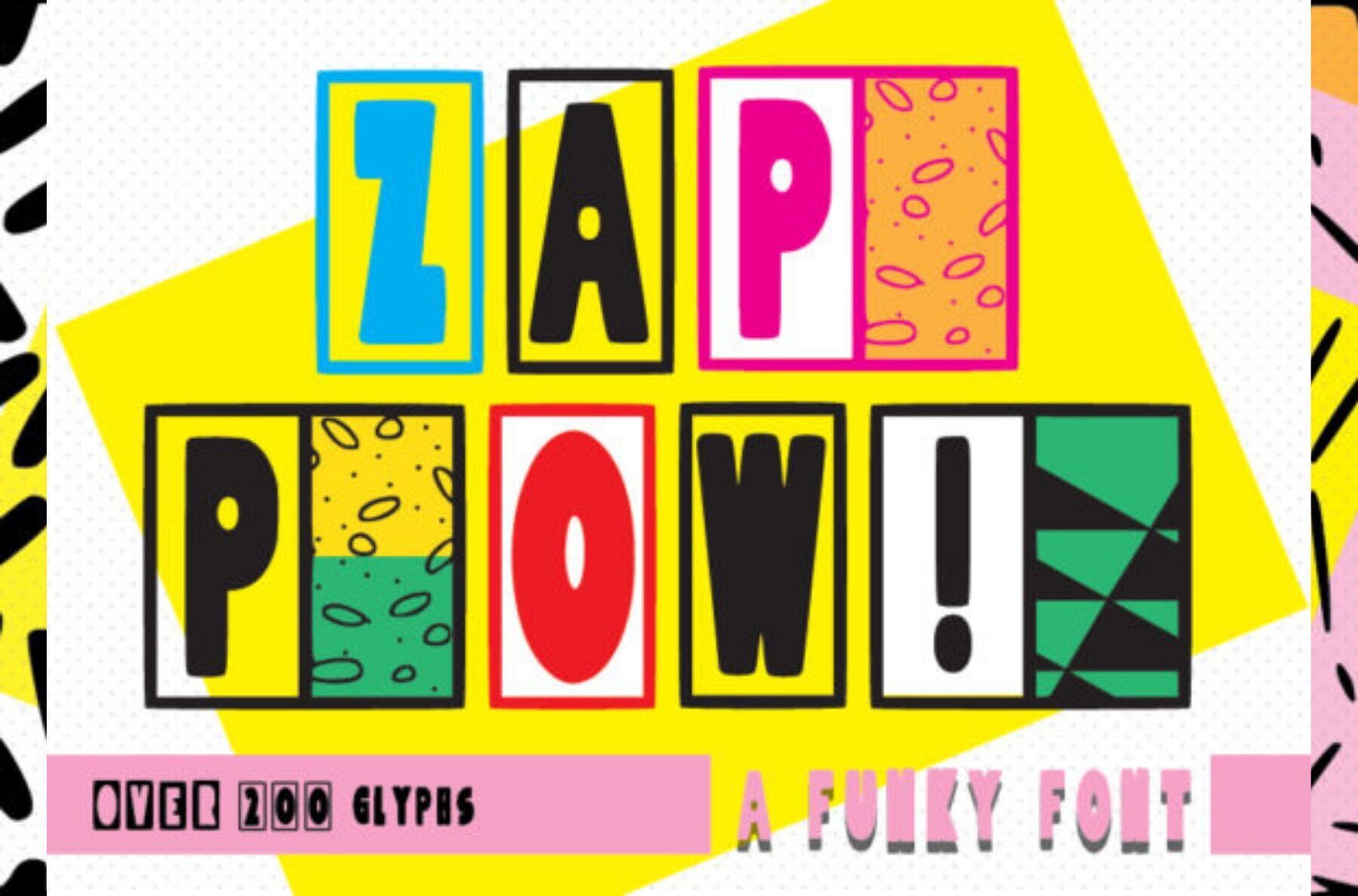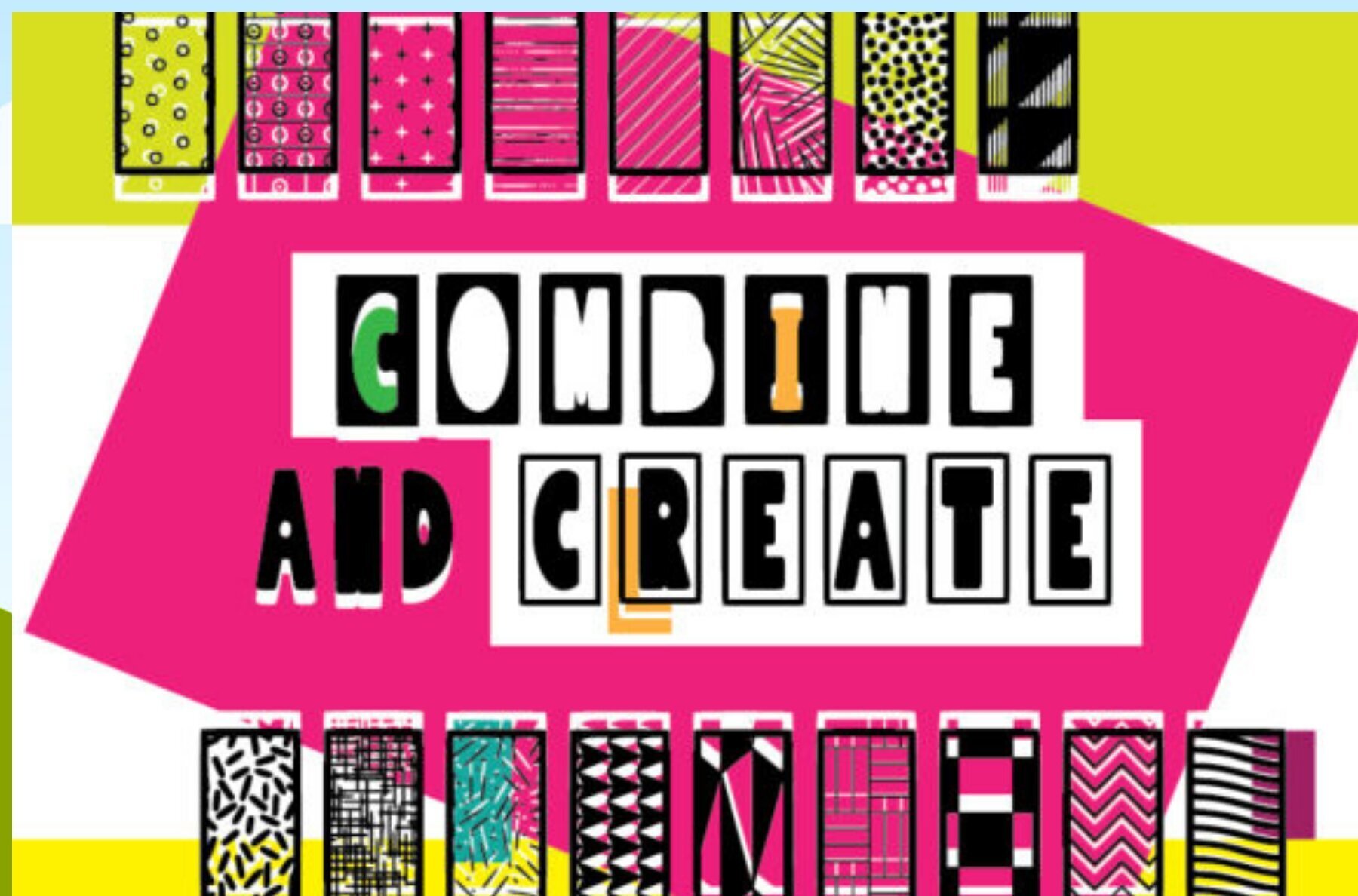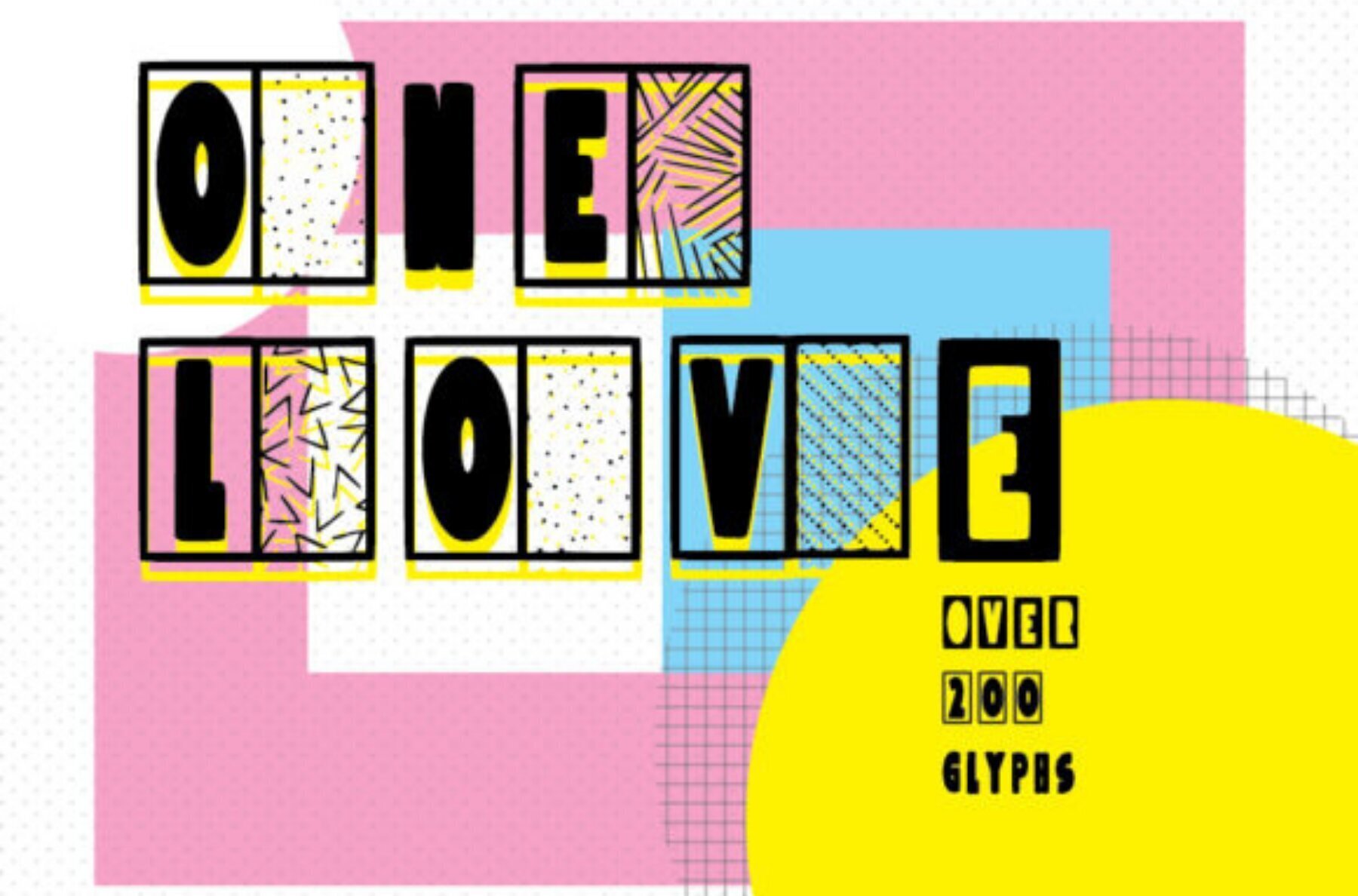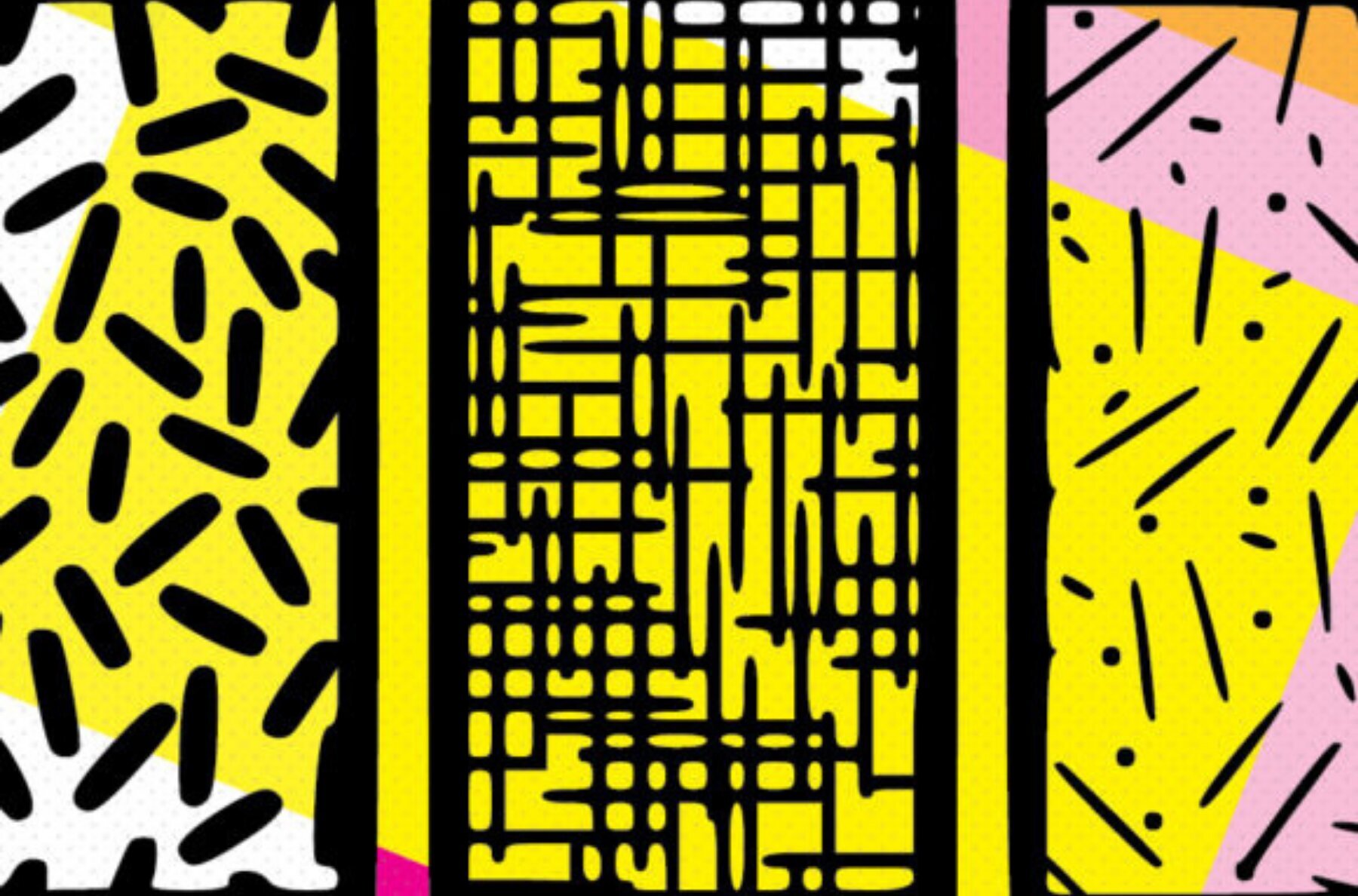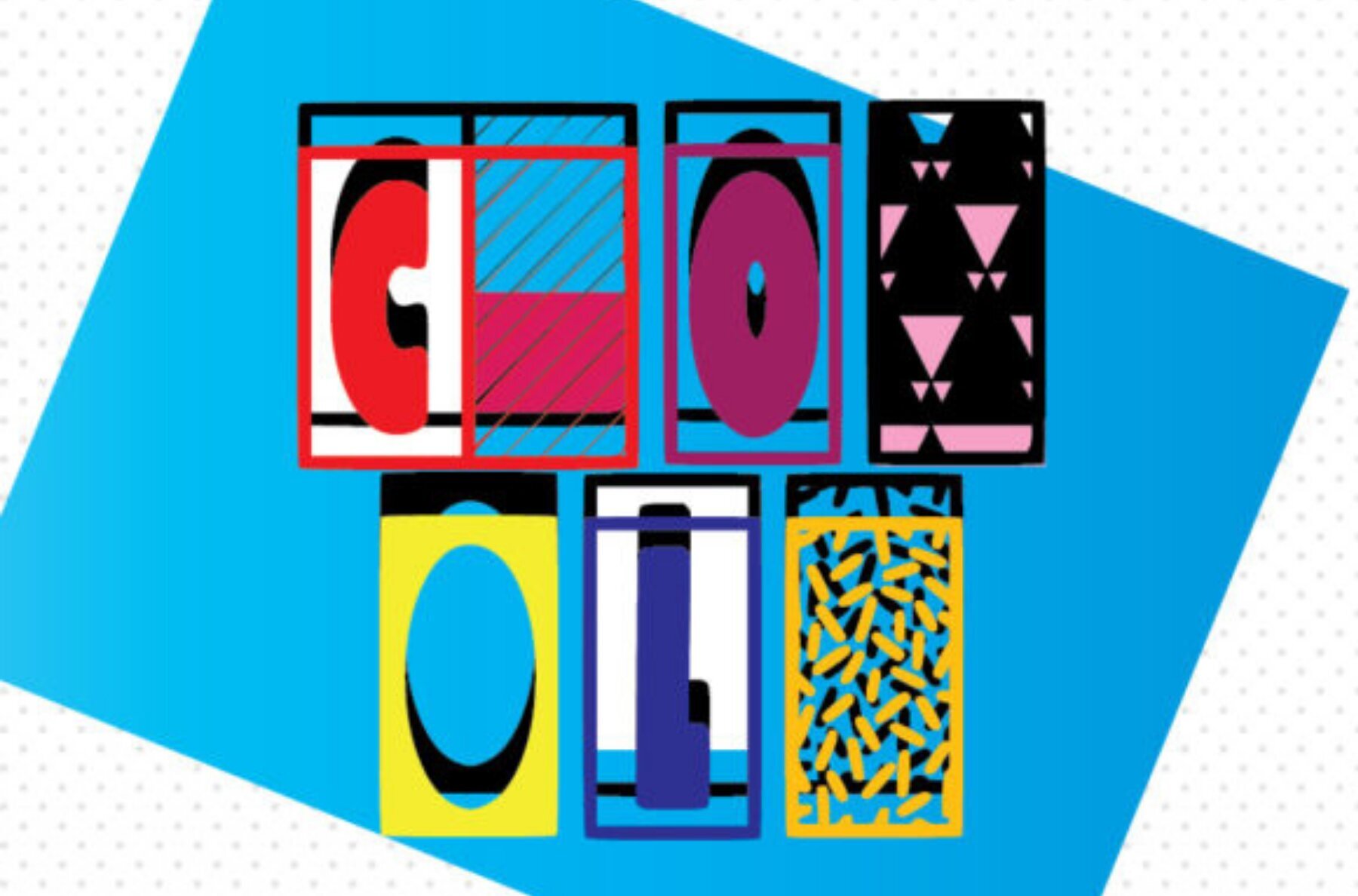
Zap Pow Font
ZapPow
ZapPow is inspired by the legendary Reggae Jazz group and just oozes creative jazz-fueled funky style.
It features over 200 glyphs including a super cool Sans Serif, supported with loads of design styles you have the freedom to combine and create with ease. Add to a design or use it to create a stand alone typography art piece, the options are truly endless!